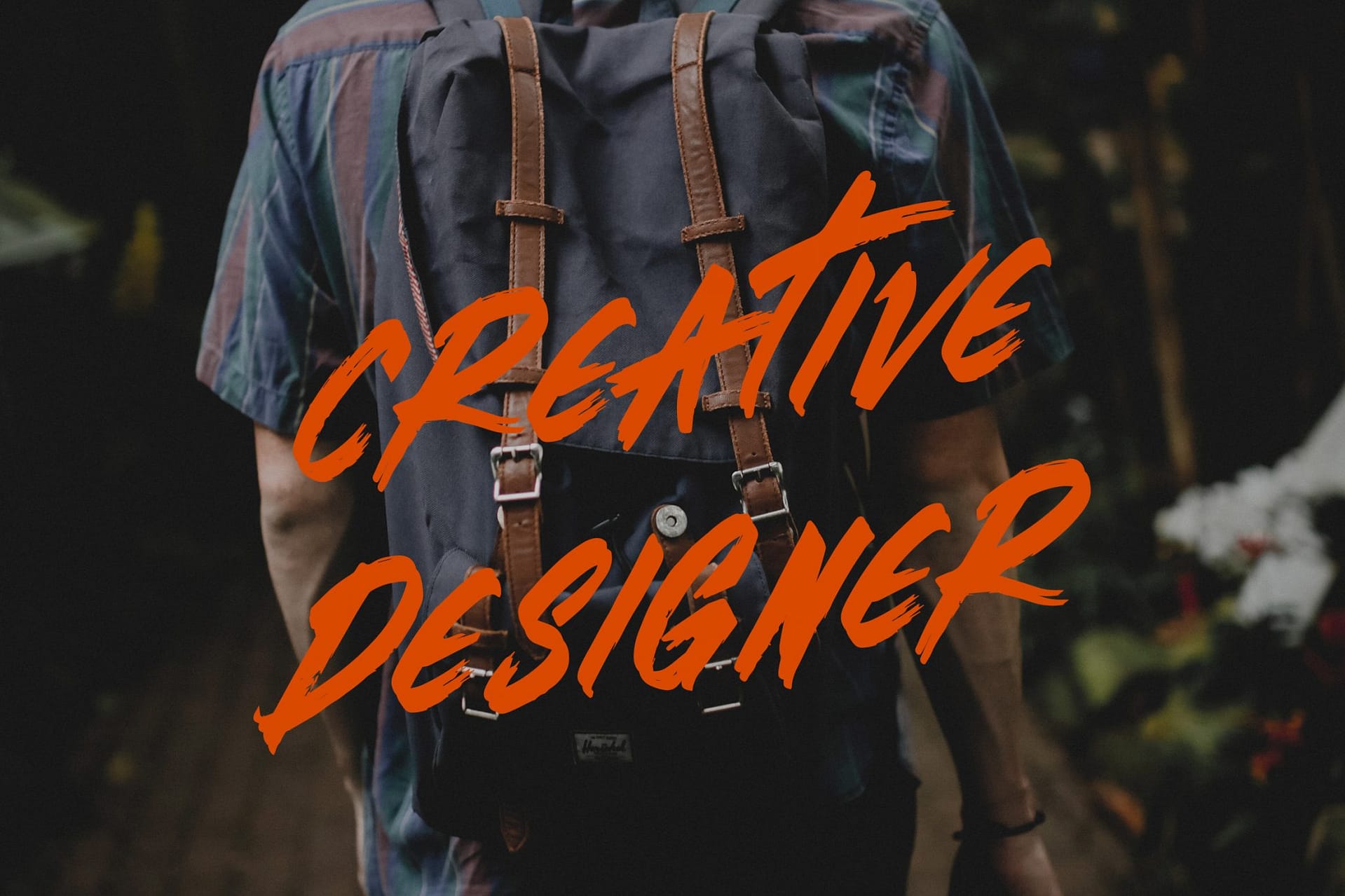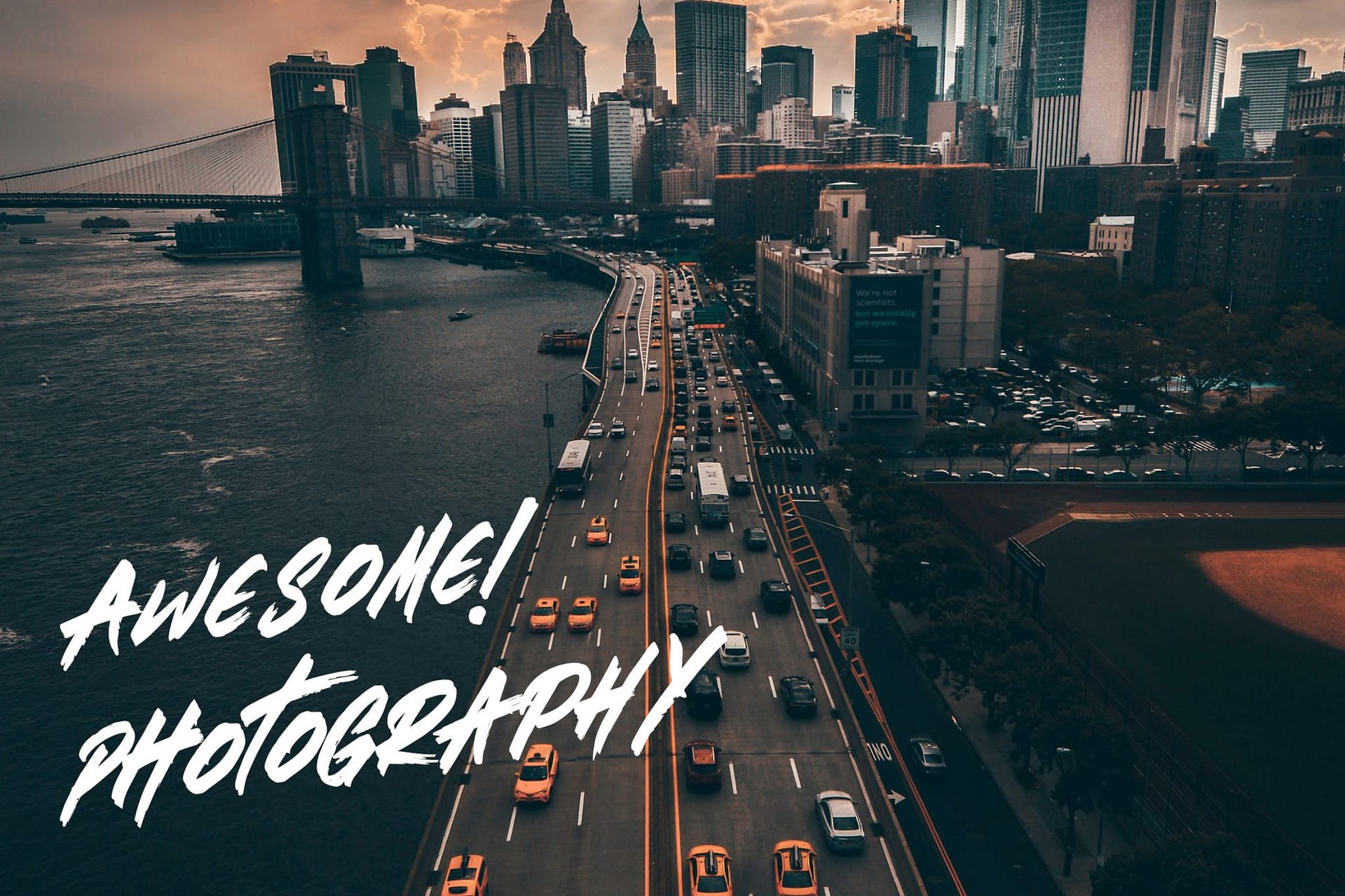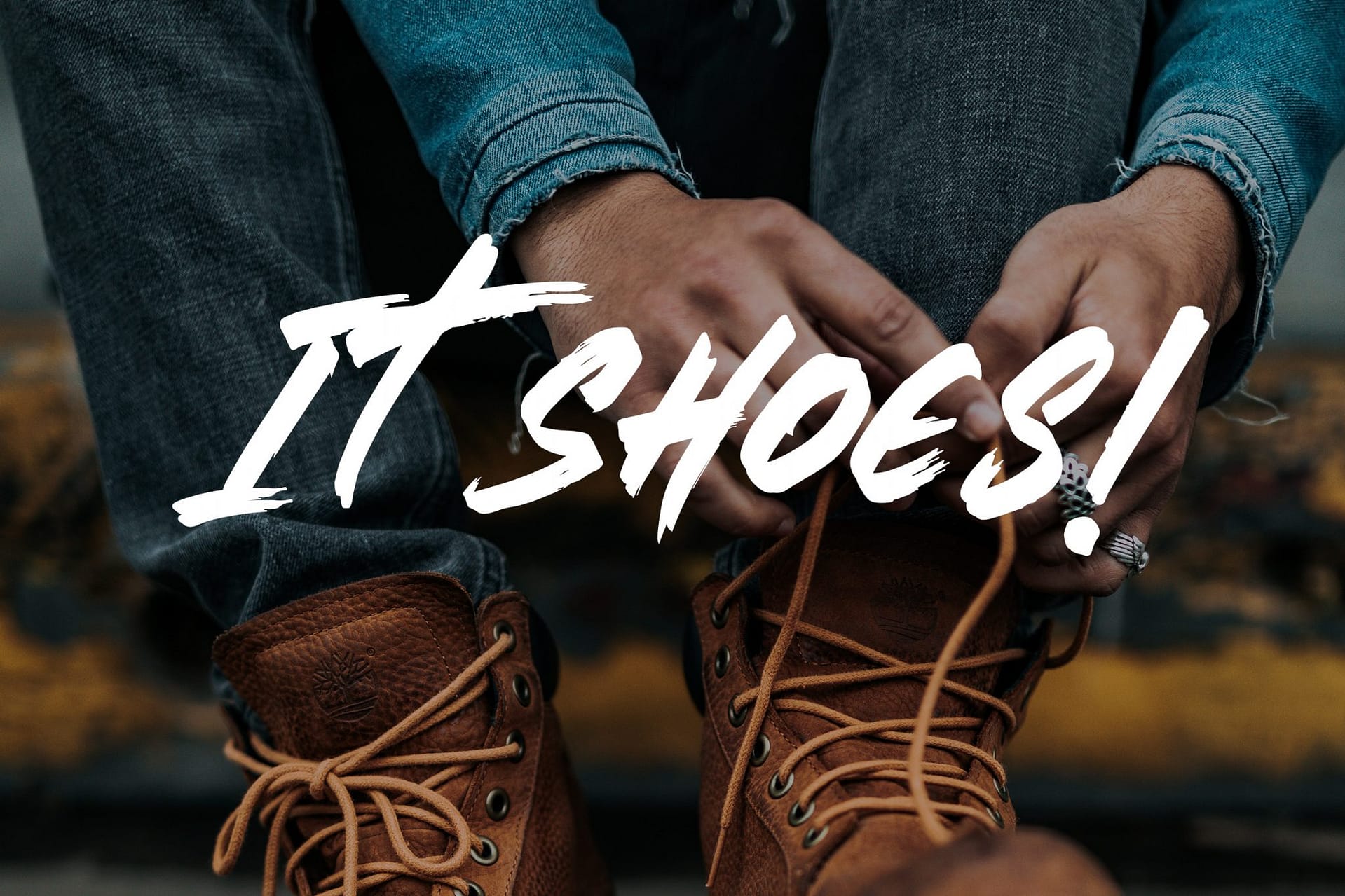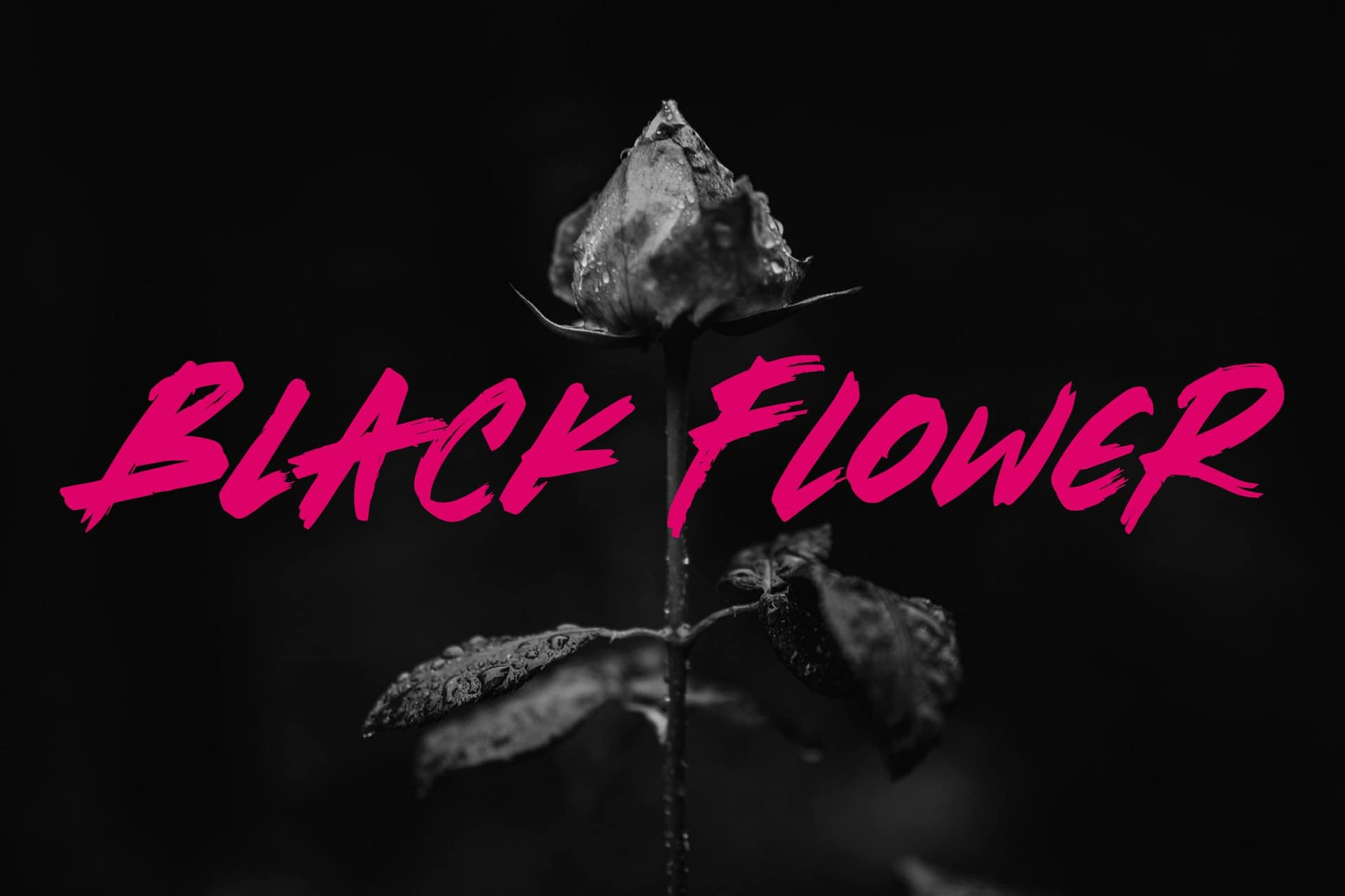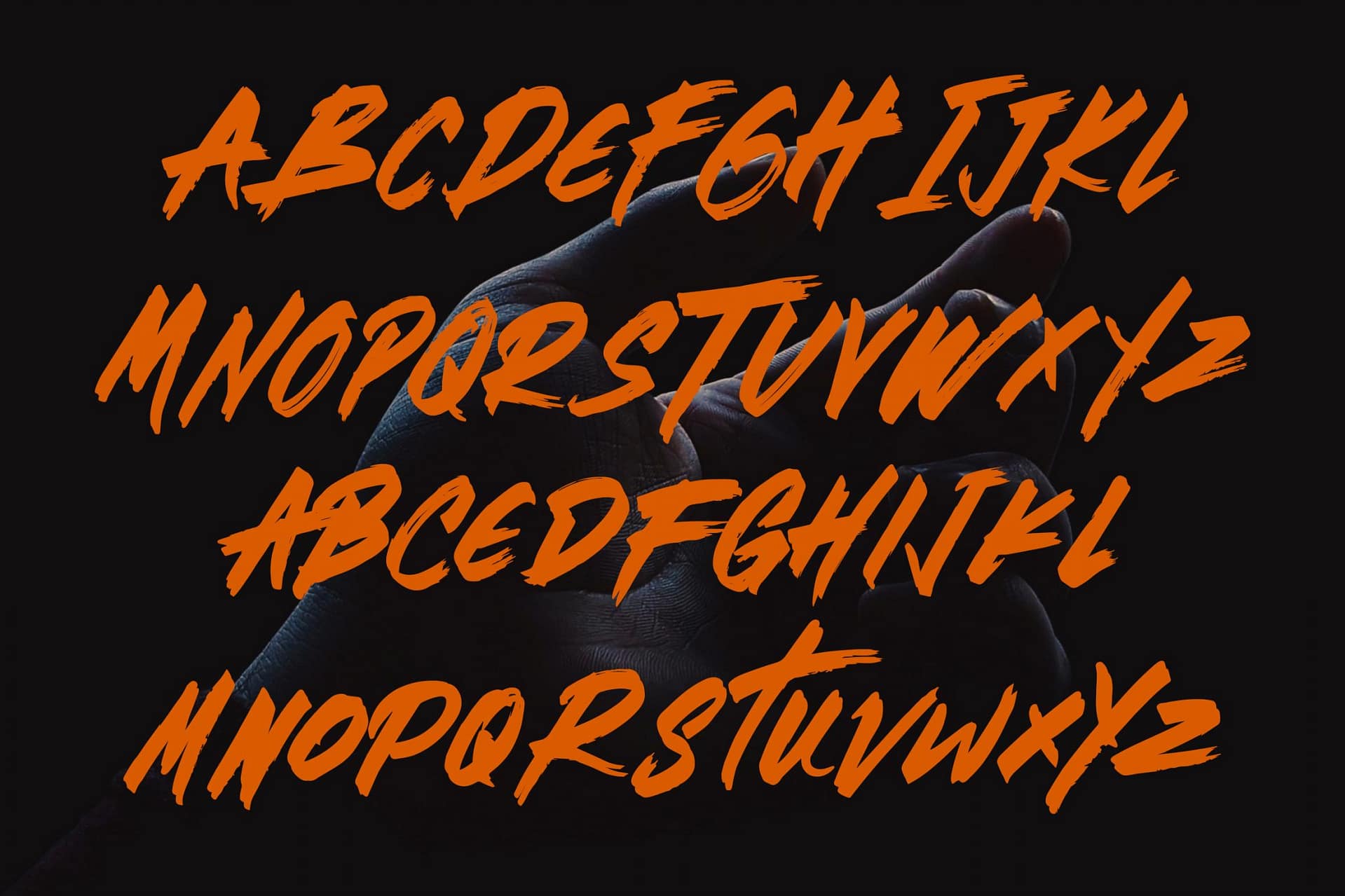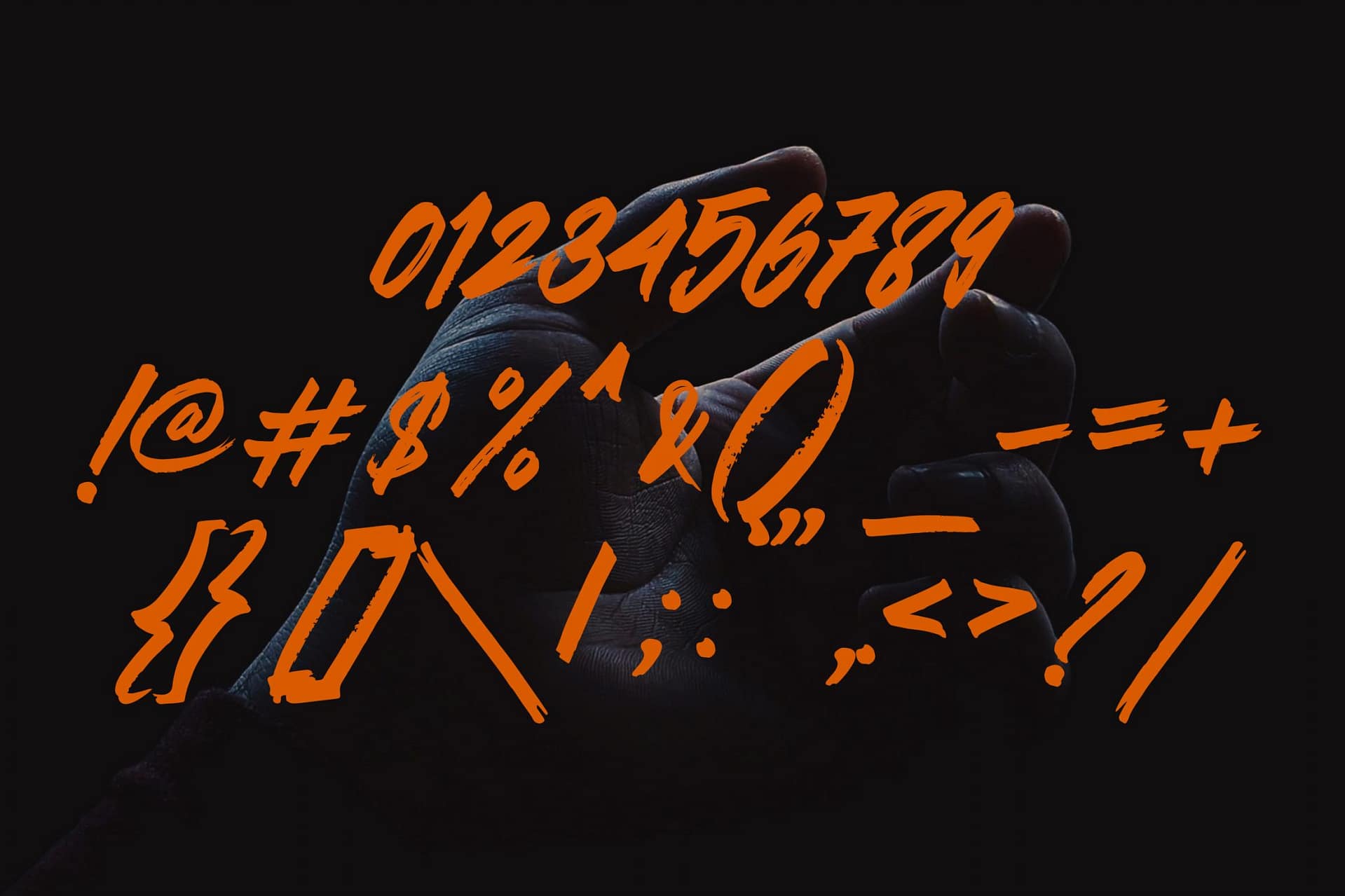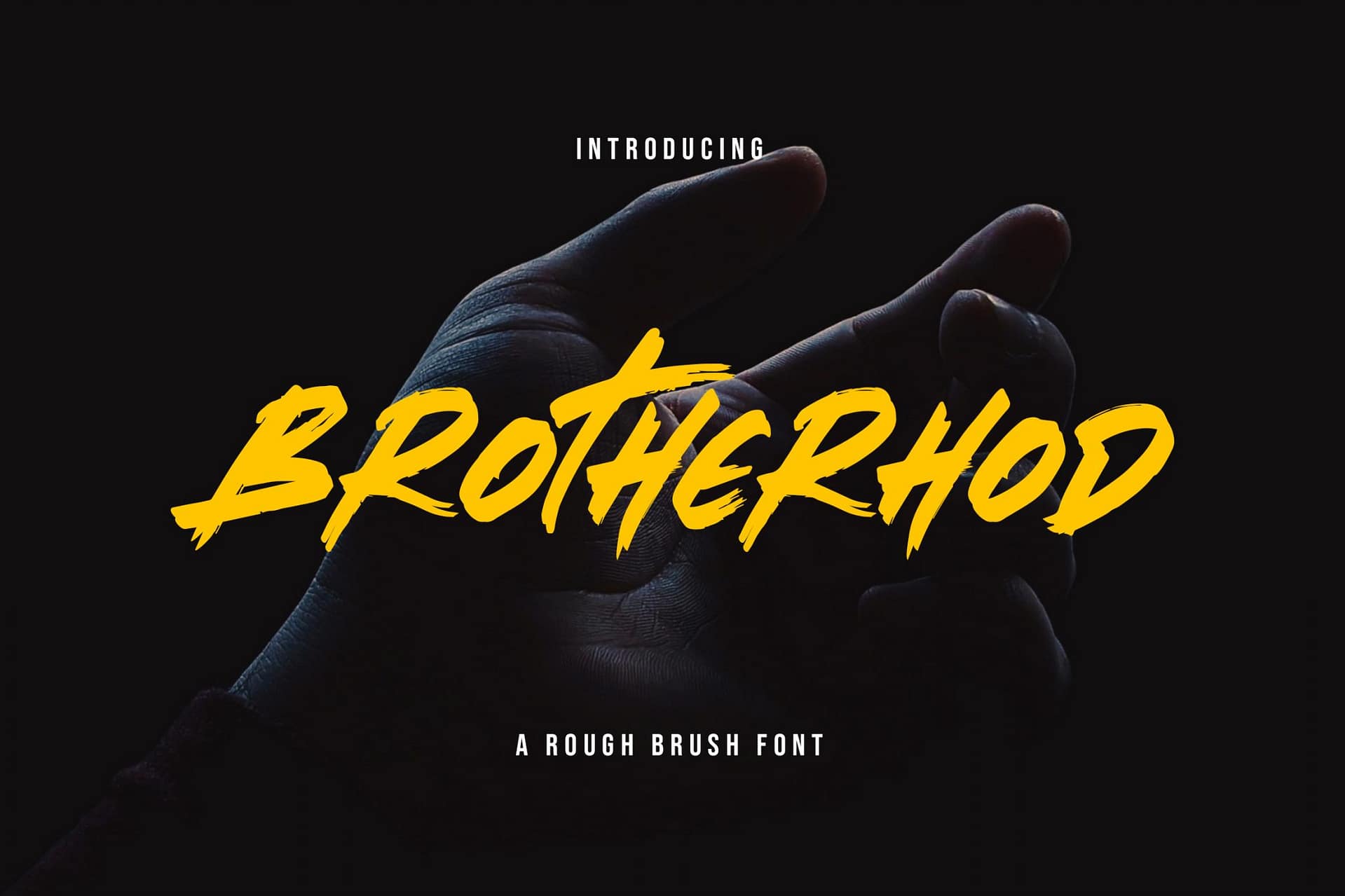
Brotherhood - Brush Script Font
Brotherhood – Brush Font is a modern, hand-drawn typeface, this font looks elegant, classy, readable, stylish, catchy and easy to use.
Brotherhood is the best choice for your professional design projects, including signature, watermark on photography, quotes, wedding, fashion, letter, invitation, business card, logo, branding, magazines, social media, advertisements, product designs, and much other design projects.
• Basic Latin A-Z and a-z
• Numbers
• Symbols